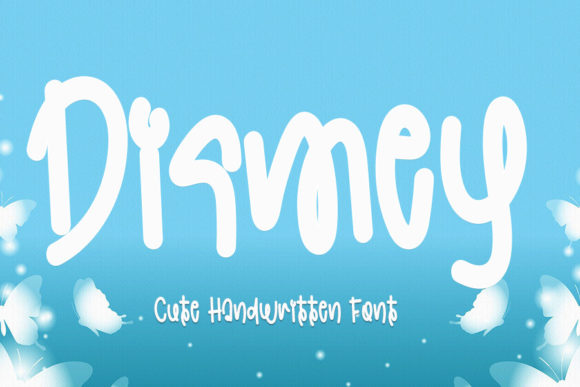
Behold the Enchanting Realm of Dismey: A Whimsical Handwritten Font Symphony
In the realm of graphic design, where creativity reigns supreme and words dance across the screen, there exists a font that enchants the senses and captivates the imagination - Dismey. This captivating script font, meticulously crafted by the artisans of Inermedia STUDIO, is a symphony of flowing lines, playful curves, and artistic flair, designed to elevate your designs to new heights.
Dismey is not merely a font; it's an artistic journey that transports you to a realm of wonder and whimsy. Each letterform is a work of art, lovingly rendered with delicate strokes and charming imperfections, evoking the magic of a handwritten note penned with utmost care. Whether you're creating logos, social media graphics, invitations, or any other design project that demands a touch of whimsy, Dismey is your trusted companion.
Immerse yourself in the boundless versatility of Dismey, a font that adapts seamlessly to a myriad of design styles and themes. Its inherent playfulness lends itself effortlessly to children's books, creating a captivating world where every page is an adventure. Unleash its elegant charm in wedding invitations, evoking a sense of romance and timeless beauty. Let Dismey weave its magic into your branding materials, capturing the essence of your brand with a unique and memorable touch.
Experience the transformative power of Dismey as it breathes life into your graphic designs, igniting a symphony of emotions and capturing the attention of your audience. Elevate your designs from ordinary to extraordinary, transforming them into captivating masterpieces that resonate with your audience and leave an indelible mark.
Embrace the artistry of Dismey, a font that is more than just a collection of letters; it's a gateway to a world where creativity flourishes, where imagination takes flight, and where your designs transcend the ordinary to become truly exceptional. Let Dismey be your muse, guiding you on a creative odyssey that will leave your audience spellbound and yearning for more.